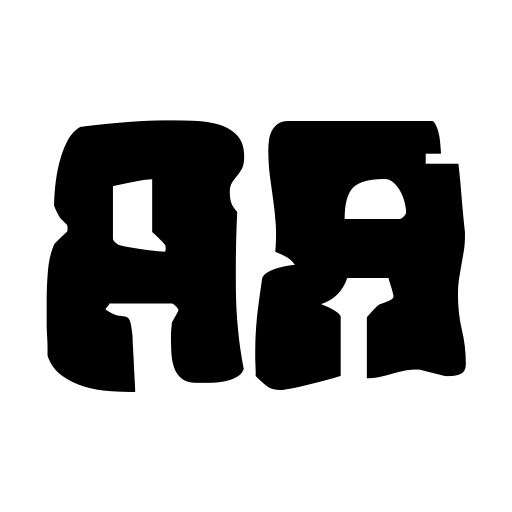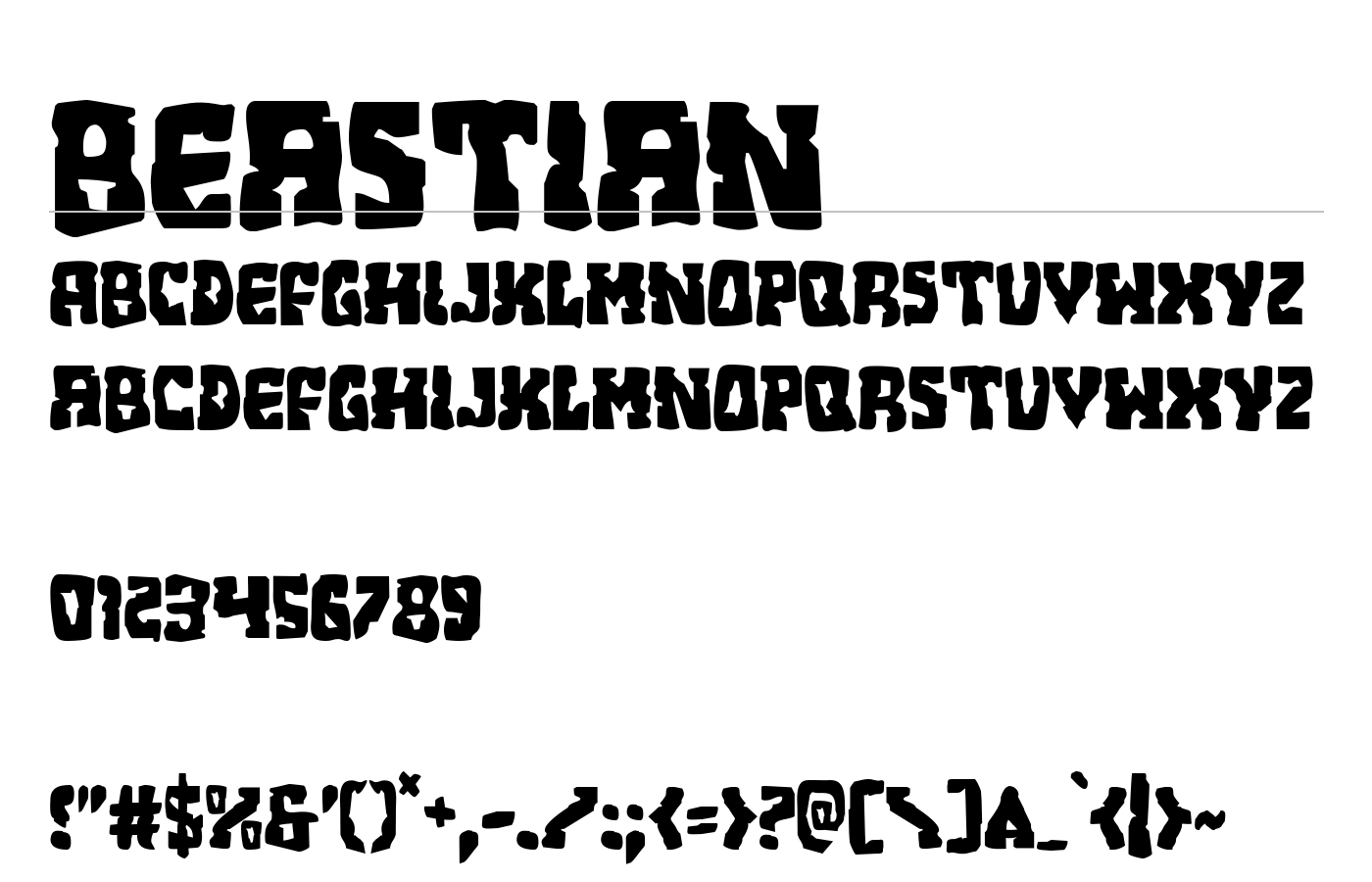
Beastian Font is a bold, chunky display typeface with a playful and rugged personality, featuring irregular, blocky letterforms that feel fun and slightly wild. Its heavy weight and tight spacing make it ideal for eye-catching headlines, logos, and posters where a strong, adventurous vibe is desired. This font works well for brands or projects aiming to convey energy, uniqueness, and a bit of untamed character.
Beastian Font
About Beastian Font